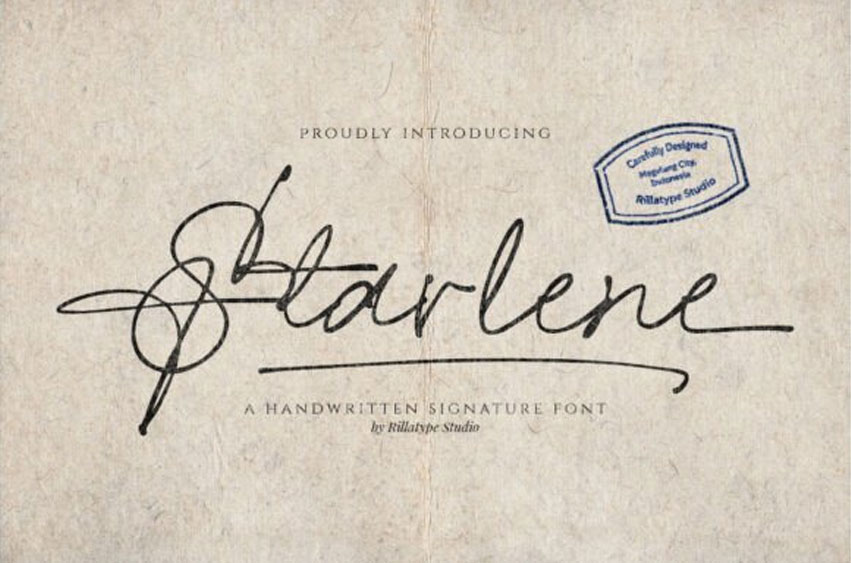
Starlene Font is an elegant and sophisticated signature font designed to capture the essence of personal expression. With its flowing, natural strokes, this font is perfect for creating signatures, branding, and any design requiring a touch of class and individuality.
The delicate curves and fluid movement make it stand out while maintaining a sense of refinement. Ideal for logos, personal stationery, and digital projects, Starlene adds a personal, handwritten feel to any creative endeavor. Whether you’re creating a luxurious brand or simply adding a unique flair to your designs, Starlene will elevate your project with its timeless charm.